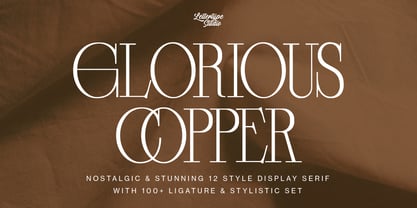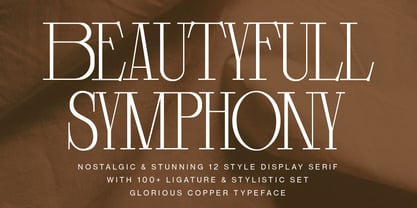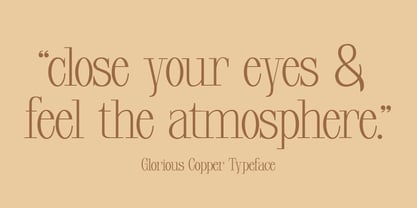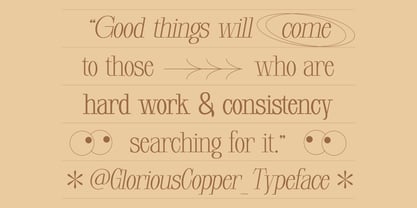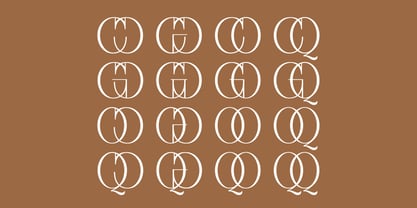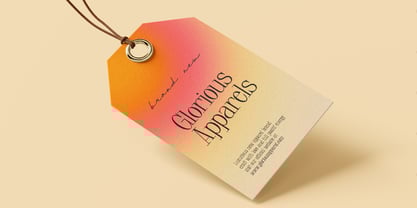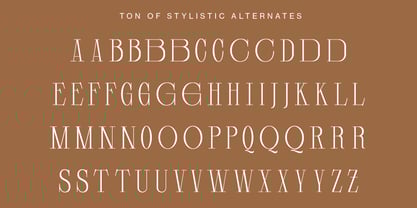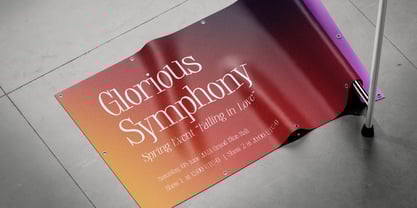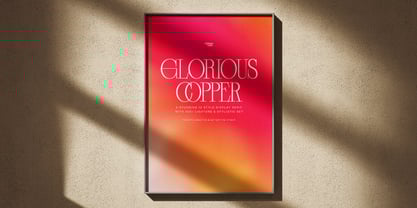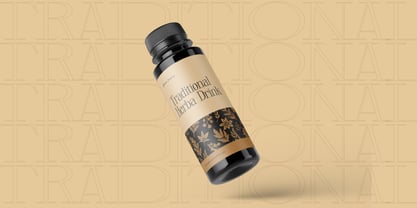
Glorious Copper
von Lettertype Studio
Die Schriftfamilie Glorious Copper wurde von Diki Pradipta Tri Atmojo entworfen und von Lettertype Studio veröffentlicht. Glorious Copper enthält 12 Stile und Familienpaketoptionen.
Glorious Copper is a nostalgic & stunning 12 style display serif with 100+ ligature & stylistic set.
Glorious Copper is perfect for vintage vibes, logo design, classic & vintage poster layouts, branding, signage, wedding invitations, fashion, lookbooks, book covers, packaging, food & beverages, and also good for quotes, or simply as a stylish text overlay to any background image and much more!
Glorious Copper